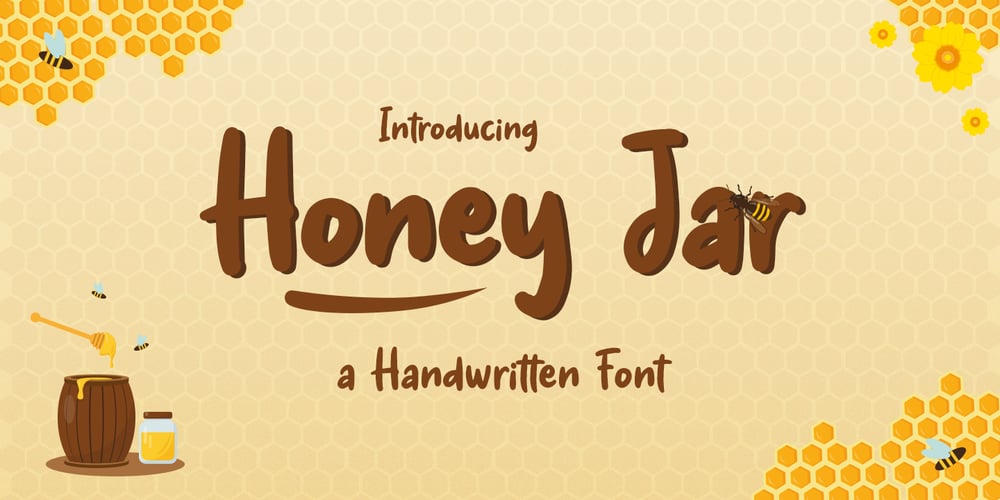
Honey Jar
Honey Jar font
Honey Jar Font Family was designed by Hilmius Akbar and published by Typefactory. Honey Jar contains 1 styles and family package options. Honey Jar is a bold and modern display font, carefully handcrafted to become a true favorite. This font will look outstanding in any context, whether it’s being used on busy backgrounds or as a standalone headline, especially on natural farm theme !